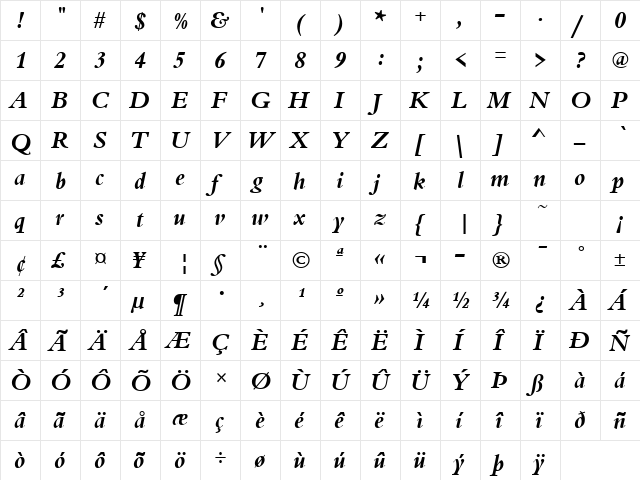
Bergamo Bold Italic
Design Context for Bergamo Typeface
Bergamo takes a measured approach to typography — its balanced proportions and neutral character make it a reliable workhorse for both digital and print work. The dynamic lean of this cut emphasises speed and emphasis in any layout. Its bold stroke weight gives it real presence on the page.